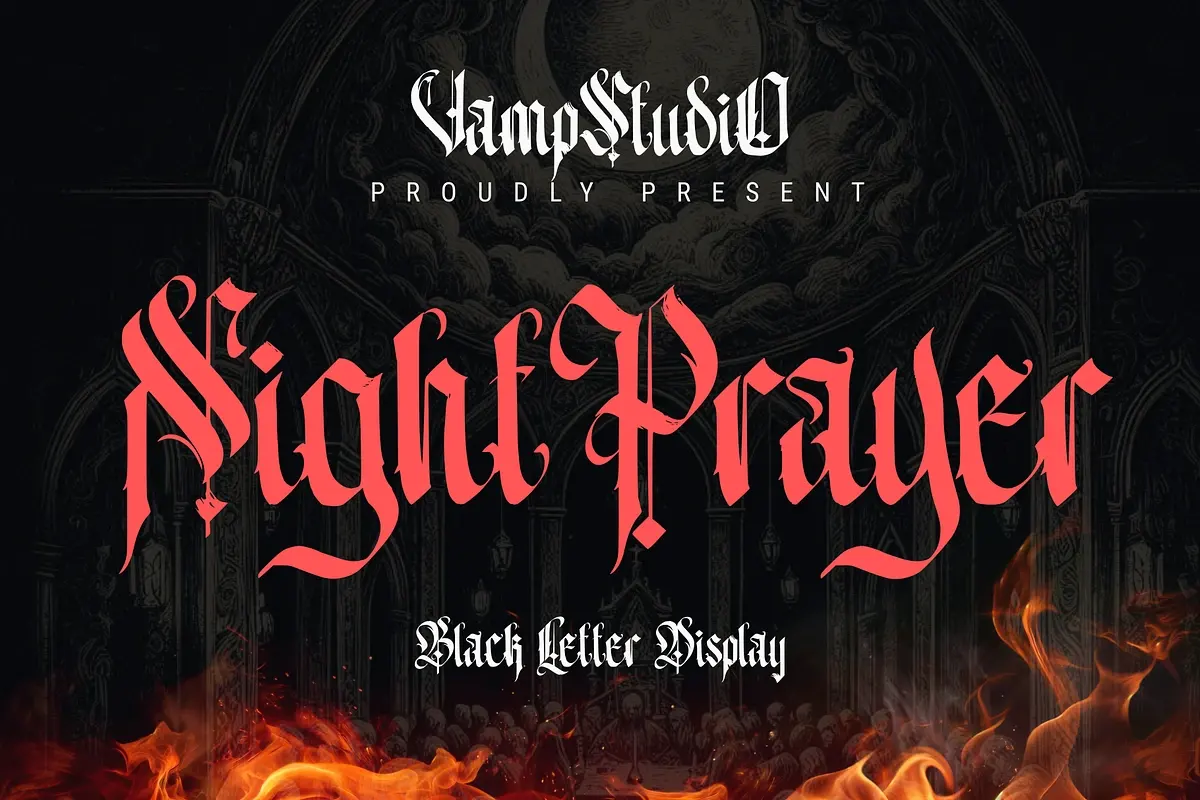
Please note, you must purchase this font for commercial use. However, you can conveniently download Night Prayer Blackletter Font Free Download for testing purposes and personal designs. Night Prayer Blackletter Font is a distinctive typeface inspired by traditional gothic lettering, ideal for adding a dramatic, vintage touch to your projects. Whether you're working on album covers, tattoo designs, posters, or branding materials, this font stands out with its bold, historical charm and intricate detailing. Creative professionals appreciate the font’s ornate style, making it perfect for designs that require depth and character. The readability and aesthetic appeal of Night Prayer Blackletter Font Free Download ensure it remains popular among graphic designers, illustrators, and typographers. Embrace its powerful presence to elevate your artwork and create visually captivating pieces. Try Night Prayer Blackletter Font Free Download today to explore its rich potential in your projects before committing to a commercial license.